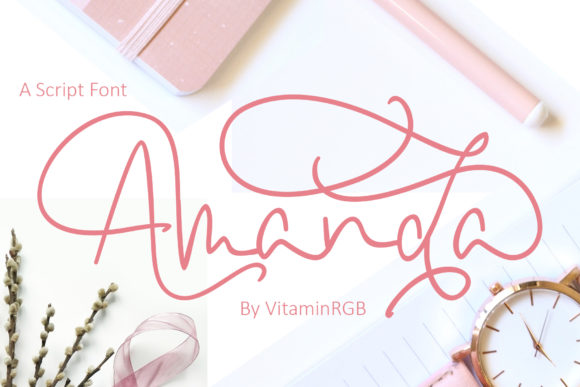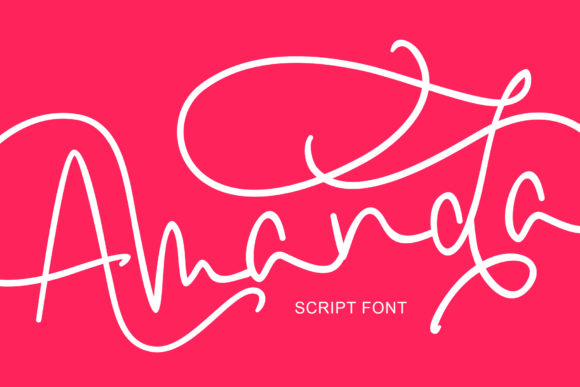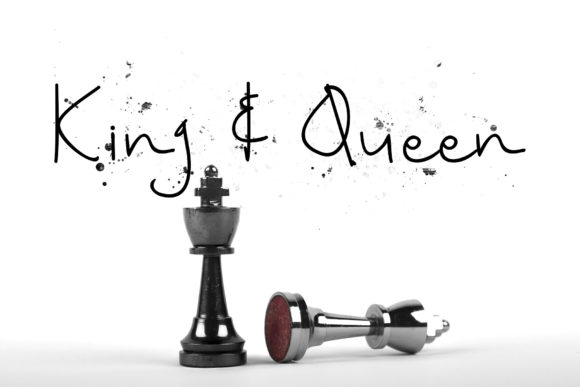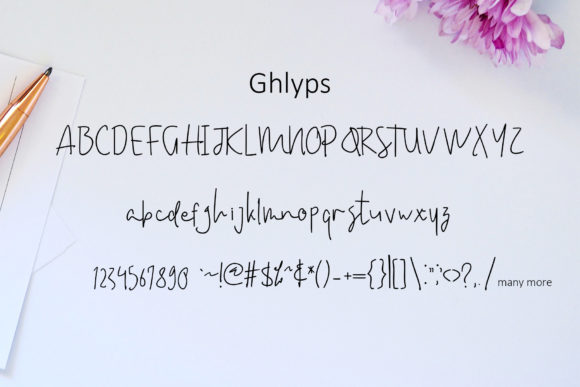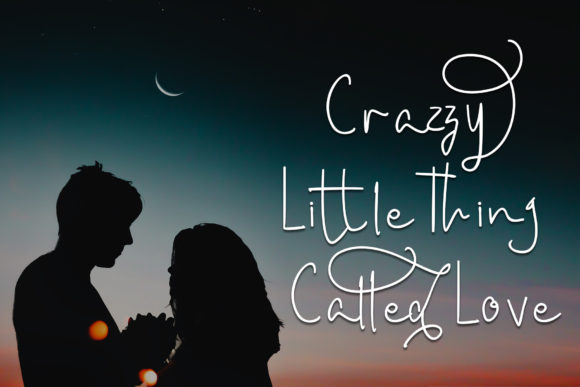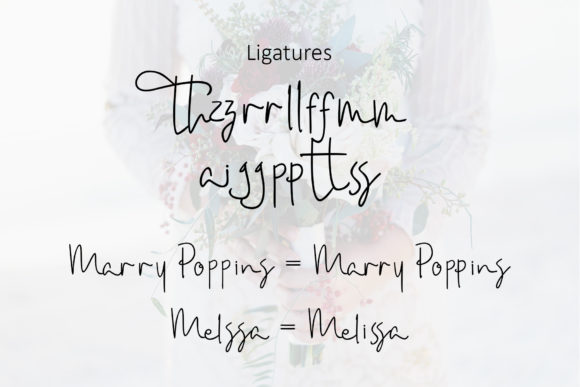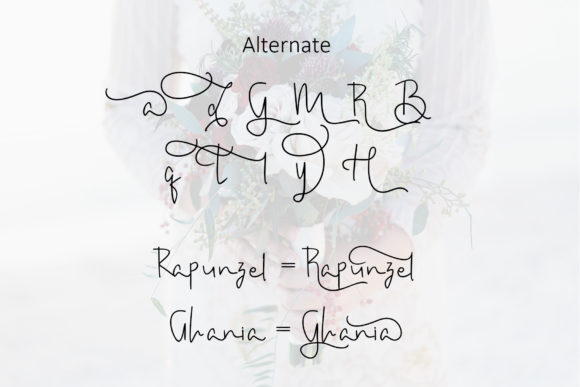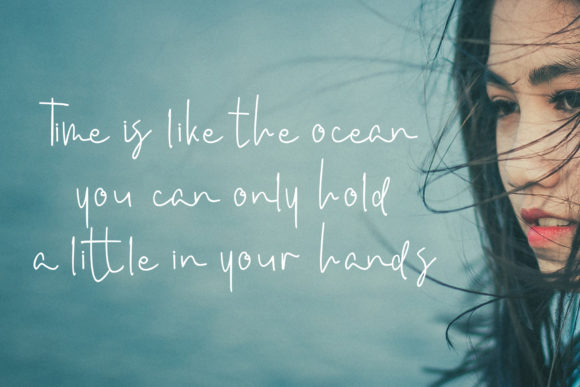
Amanda Script Font
About Amanda Script Font
The Amanda is a beautiful handwritten font. It has a stylish and classy look which can be used for adding a luxurious touch to your designs.